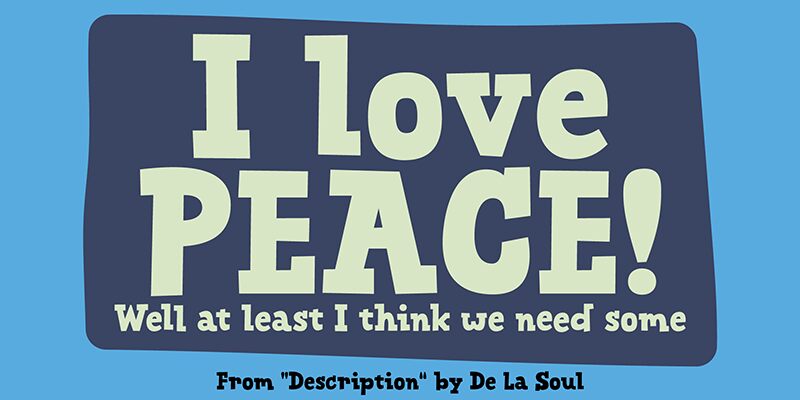
Pop Strap DEMO
Pop Strap font by Pizzadude is a display typeface with bold, cartoon-style characters in a retro-inspired chunky feel. With clear 1960s influence, Pop Strap font captures attention and makes a statement with its prominent and an almost funny nature. Although not limited to size, the display font works best for prominent projects rather than less visible ones.
What could you do with this free display font? Posters, headlines, cartoons for kids, comic/magazines covers or inner pages headlines of such publications perhaps? Even apparel design branding items like logos, labels or tags are all exciting possibilities! Engagement posts on social media networks are other possible designs!